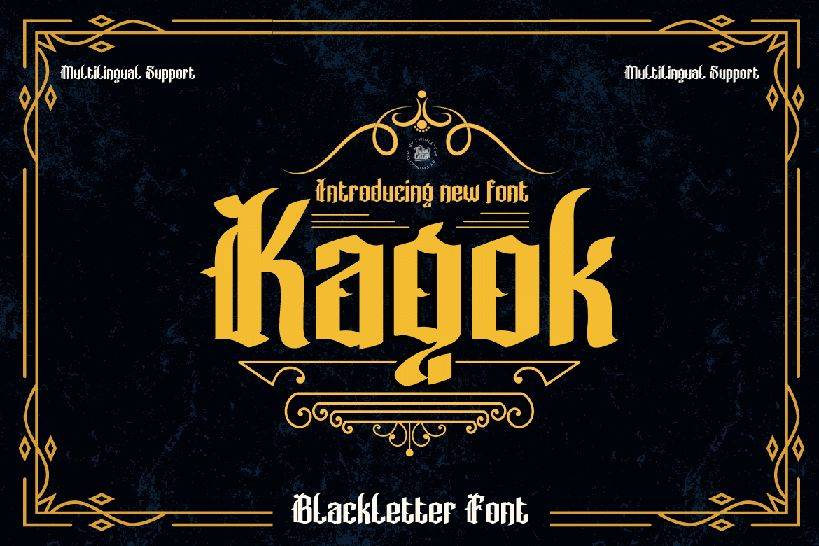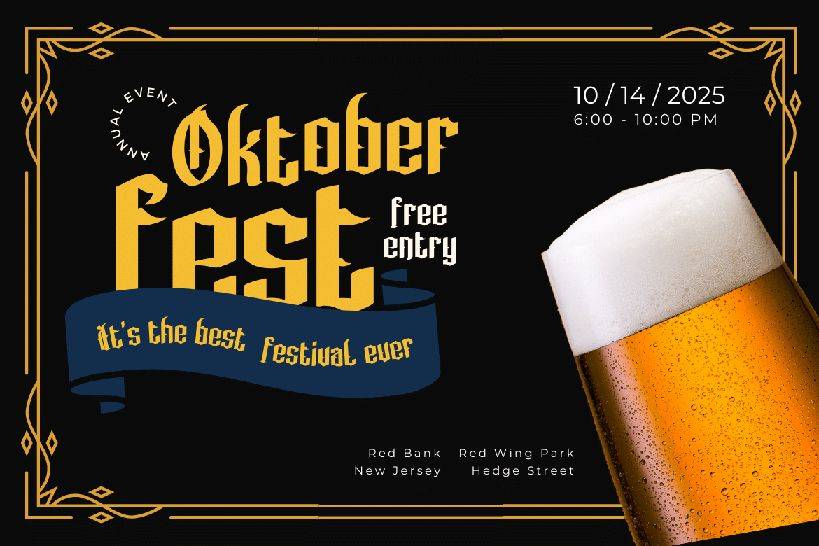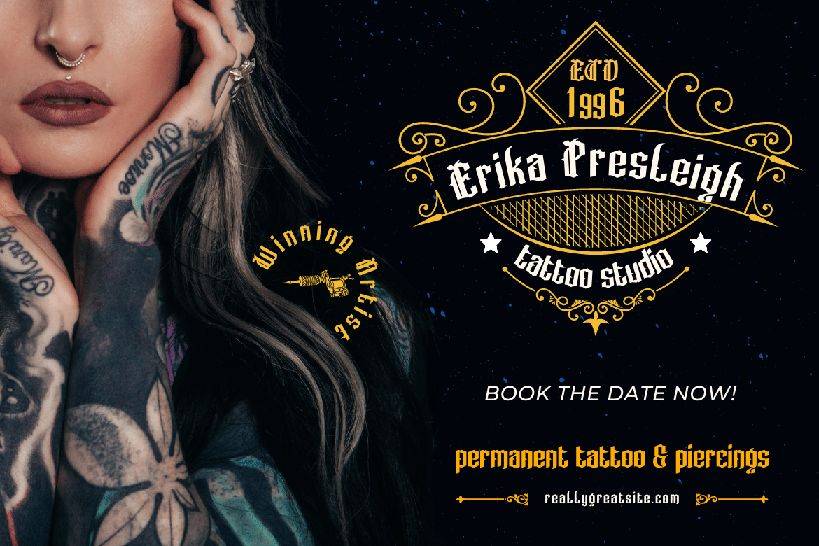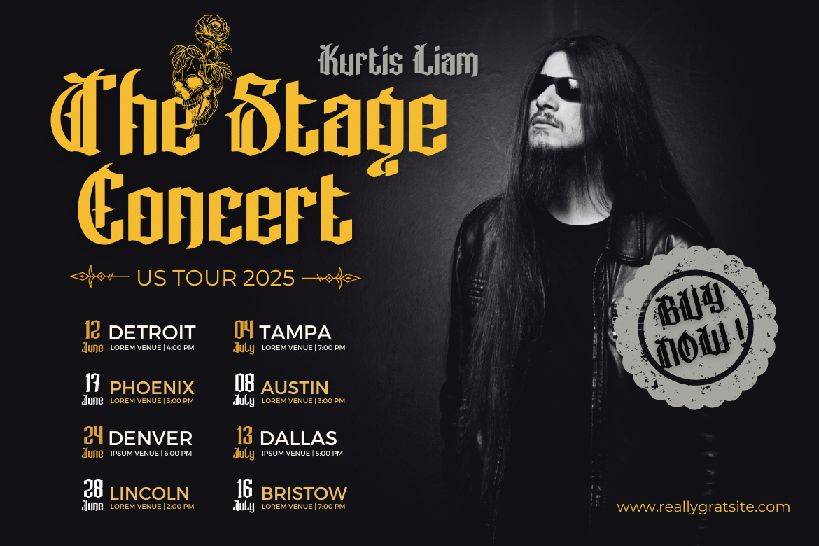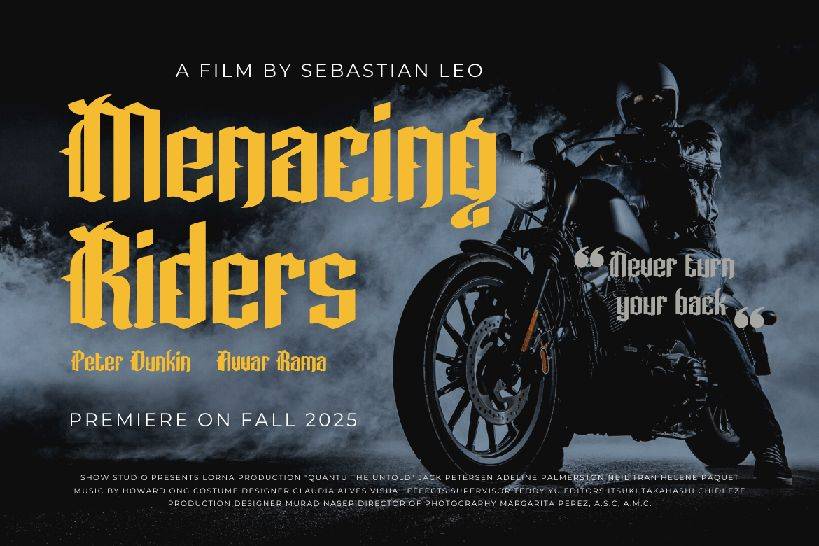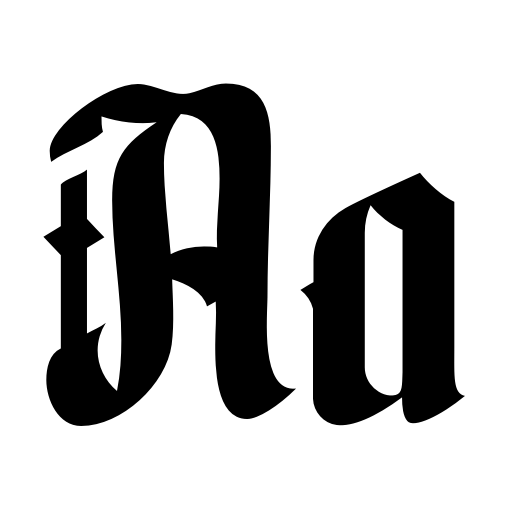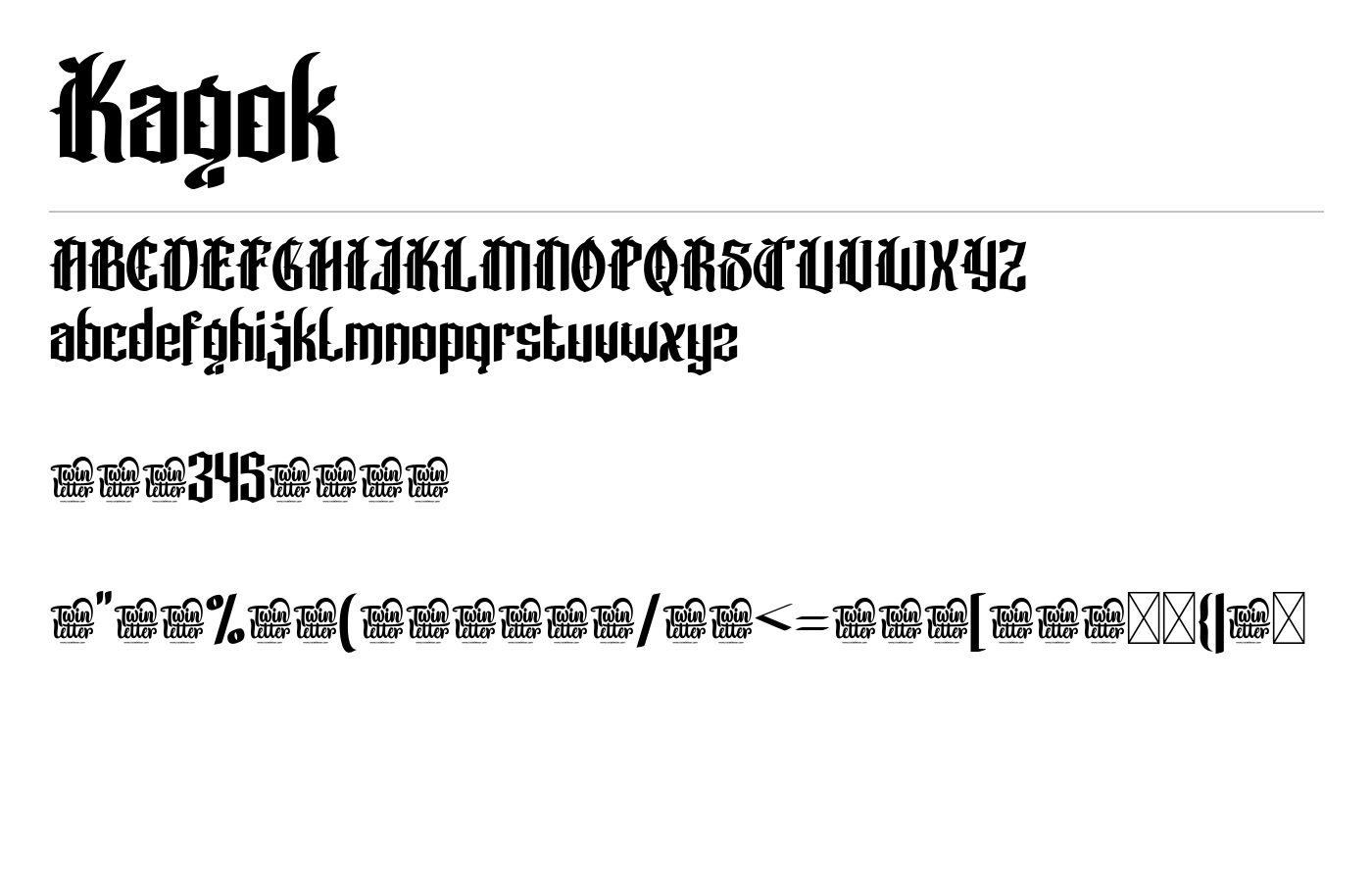
Kagok is a striking blackletter-style font with bold, sharp strokes and intricate details that evoke a Gothic, medieval aesthetic. Its dense, angular letterforms and high contrast make it ideal for creating dramatic, vintage-inspired designs, perfect for logos, headlines, or branding that seeks a strong, historic character. This font excels in projects where a unique, eye-catching display typeface is needed to convey tradition and intensity.
Kagok Font
About Kagok Font